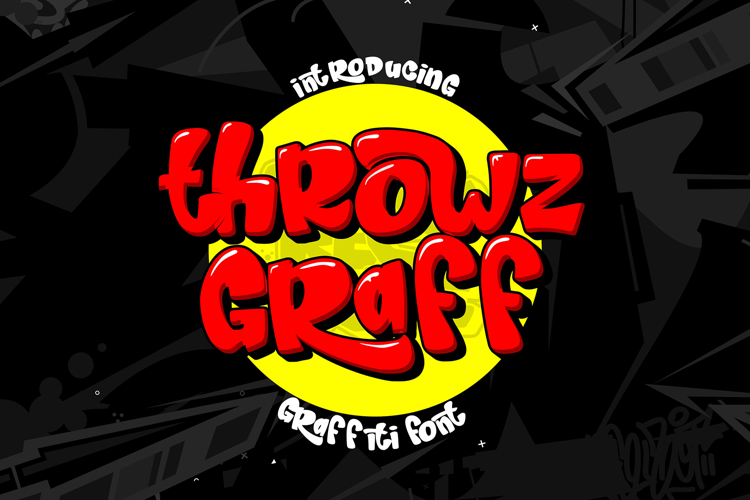
Throwz Graff | Freestyle Graffiti Font
Throwz Graff is a powerful freestyle graffiti font designed to bring raw energy and bold attitude to your creative work. This all-caps typeface is inspired by real street tagging and urban wall art, making it perfect for digital designs, murals, posters, album covers, and motion graphics that need an authentic graffiti touch.
With its aggressive brush strokes and dynamic letterforms, Throwz Graff delivers that true freestyle aesthetic that designers crave. Whether you're crafting urban digital content or DIY zines, this font brings the graffiti vibe to life instantly.
Key Features:
- All-Caps Typeface with Freestyle Graffiti Feel
- Natural Brush Strokes & Real Urban Energy
- Ideal for graffiti poster designs, album art, event flyers, and digital media
Why Designers Love It: Throwz Graff is a go-to for designers who want high-impact graffiti fonts without sacrificing readability. Its bold lines and handcrafted character make every headline pop. Whether you're designing for hip-hop promo, creative branding, or edgy digital art, this freestyle graffiti font brings a unique personality that’s hard to fake.